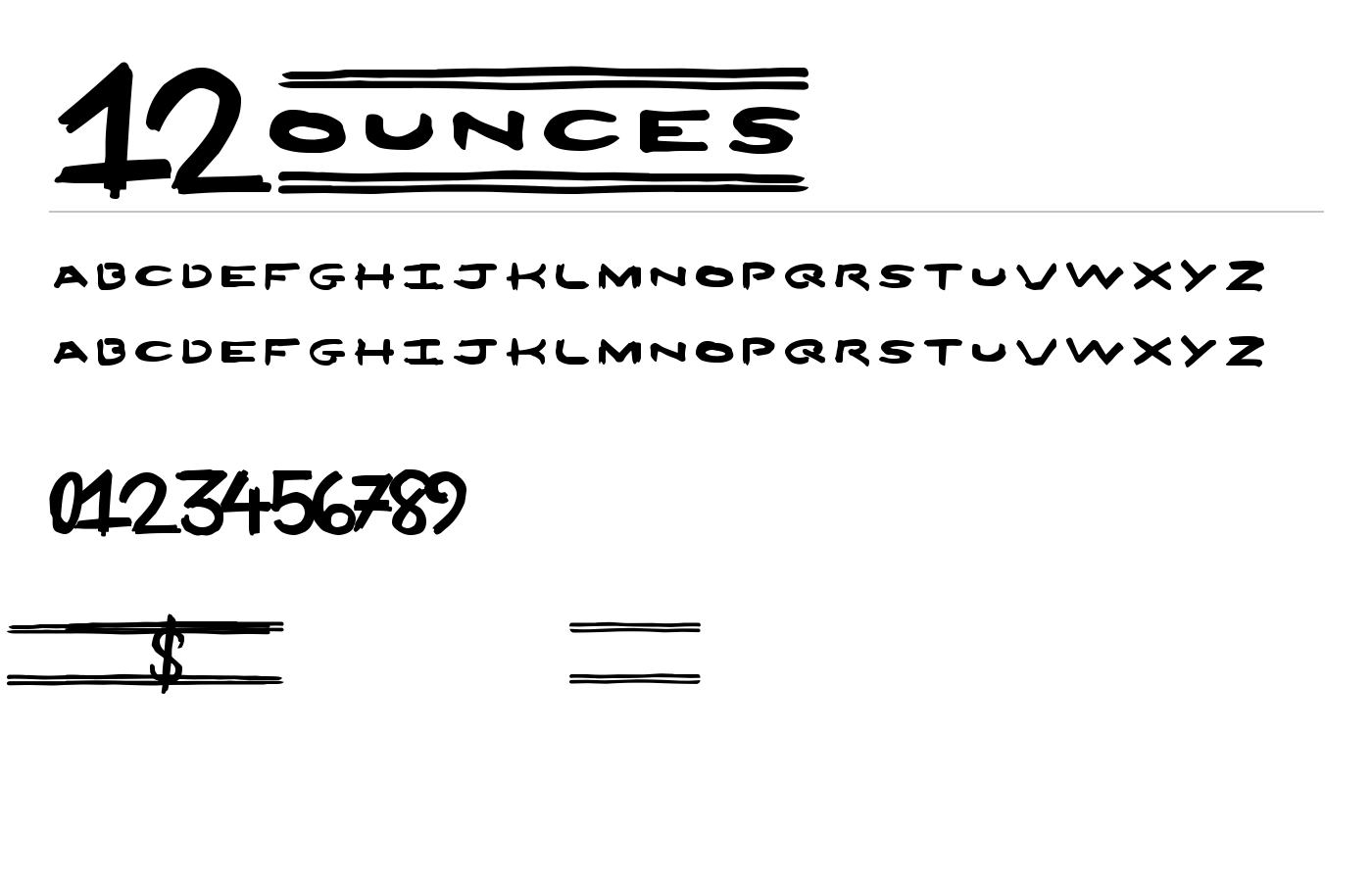
12Ounces is a playful, hand-drawn sans serif font with a casual, organic feel created by uneven strokes and quirky letter shapes. It features bold, irregular characters with a lively personality, making it perfect for informal designs, creative projects, and brands seeking a friendly, approachable vibe. This font works well in headlines, logos, and packaging where a handcrafted, artistic touch is desired.
| Font family | 12Ounces( Font |
| Designer | Max Infeld Xerographer Fonts |